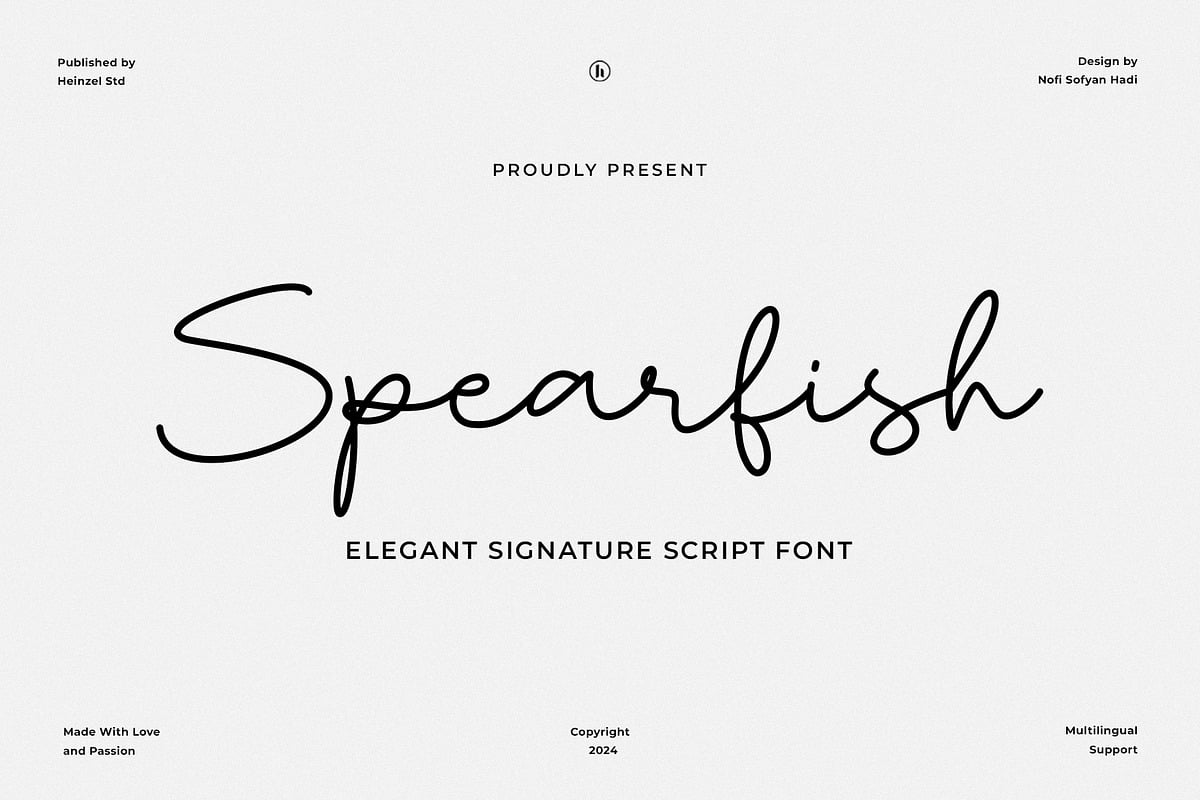
Spearfish Elegant Signature Font
Bring the beauty of a handwritten signature to your designs with Spearfish — a flowing, elegant script typeface.
Spearfish is an elegant signature script font crafted to add a natural, sophisticated, and personal touch to creative work. Its smooth handwritten strokes, fluid connections, and stylish letterforms recreate the authentic feel of a beautifully penned signature.
Its graceful, effortless aesthetic makes it especially well-suited for:
- Feminine branding and luxury identity design
- Wedding invitations and stationery
- Logos and packaging
- Photography and fashion branding
- Social media graphics and editorial layouts
- Quotes, greeting cards, and personal projects
Whether you're building a refined brand identity or adding an artistic handwritten touch to a creative project, Spearfish delivers a distinctive, sophisticated character that stands out.